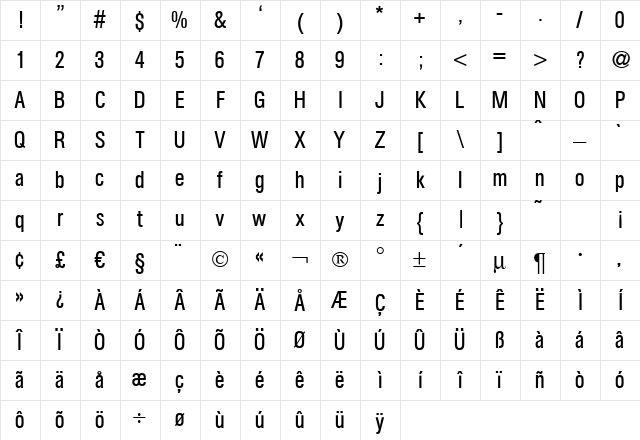
AtkinsCd Regular
AtkinsCd Family
AtkinsCd Regular
Complete AtkinsCd Regular glyph index. Displaying only characters natively supported by AtkinsCd Regular font.
Design Context for AtkinsCd
AtkinsCd is a composed and adaptable typeface that performs quietly and consistently across a wide range of design contexts.